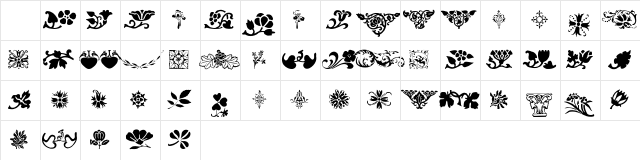
PrintersOrnamentsOne Regular Free Font
PrintersOrnamentsOne Regular
Design Context for PrintersOrnamentsOne
PrintersOrnamentsOne is built around its visual character rather than neutral utility - its distinctive forms are designed to make an impression at display sizes.
Font Pairing: Pair with a clean neutral sans-serif for body copy to let PrintersOrnamentsOne's character lead without overwhelming the composition.
Pro Tip: Use PrintersOrnamentsOne exclusively at display sizes - it was designed to be seen, not read at length. Let a neutral companion handle body copy.